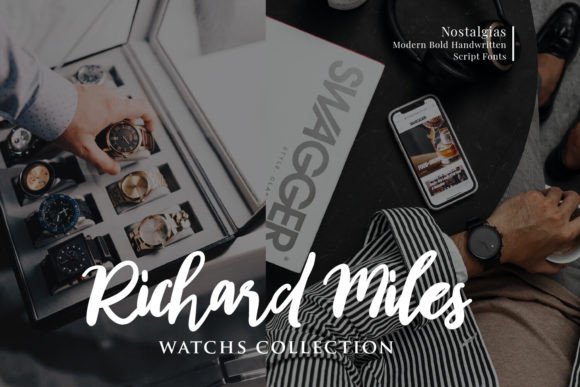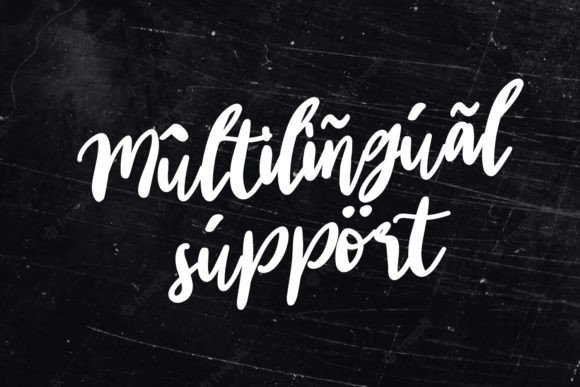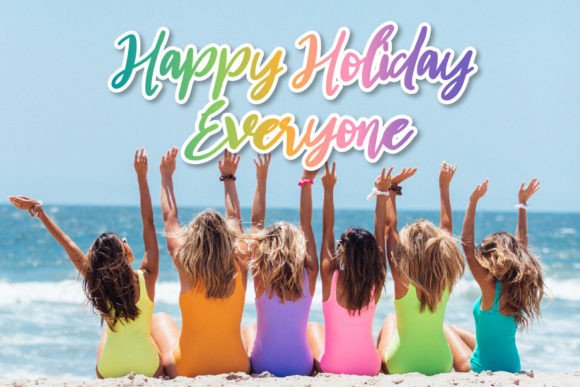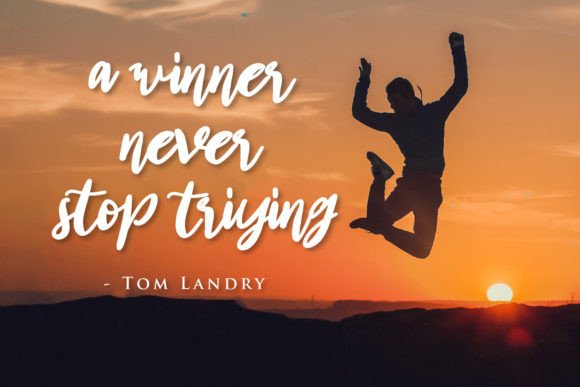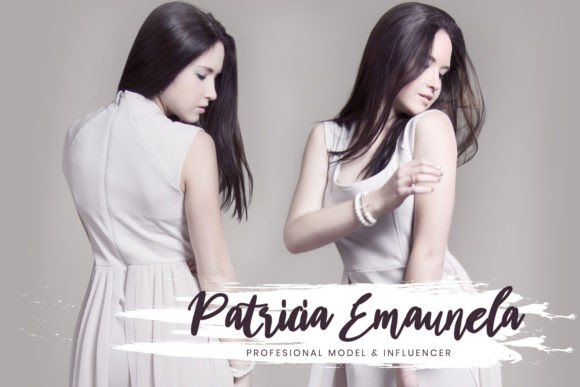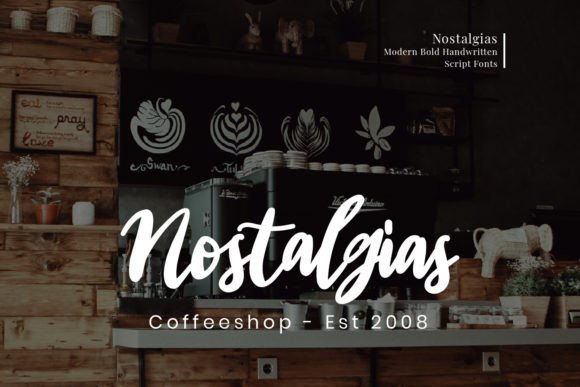
Introduction to Nostalgias Font
Have you ever been working on a design project, and the perfect font just slips your mind? You envision a beautiful, handwritten script that captures the essence of your creative vision, but it seems like an unattainable dream. Well, we’ve got some exciting news for you! The Nostalgias Font is here to revolutionize your design process, making it easier than ever to bring your ideas to life.
This high-quality, Handwritten Script font is the perfect addition to any design resource. With its unique, elegant style, it’s sure to elevate your branding, promotional ads, quote designs, merchandise, and social media projects to a whole new level. Whether you’re working on a special event or a personal creative project, the Nostalgias Font is the perfect tool to help you stand out from the crowd.
Key Features of Nostalgias Font
- High-quality, vintage-inspired design ideal for creative projects and design resources.
- Features a transparent background, allowing for easy layering and manipulation in design software.
- Designed with a distressed, nostalgic aesthetic, perfect for adding a touch of retro charm to your design.
- Available in multiple font sizes and resolutions, making it suitable for a wide range of design applications.
- Can be easily customized and edited using popular design software, such as Adobe Photoshop and Illustrator.
- Perfect for use in graphic design, digital art, and other creative projects that require a unique, high-quality font.
Honest Review: Nostalgias Font
As a designer, I’m always on the lookout for high-quality design resources that can elevate my creative projects. Recently, I had the chance to work with the Nostalgias Font, and I’m excited to share my honest review.
- ✨ Unique and vintage aesthetic that’s perfect for retro-themed projects
- ✨ Clear and transparent background, making it easy to use on any design
- ✨ Compatible with various design software and platforms
- ⚠️ Limited font size options, which can be a challenge for large-scale designs
- ⚠️ Some users may find the font too ornate or busy for certain design projects
Overall, I’m impressed with the Nostalgias Font’s unique character and versatility. While it may have some limitations, it’s a valuable design resource for anyone looking to add a touch of nostalgia to their creative projects.
Tips for Getting the Most Out of Nostalgias Font
Use the Nostalgias Font on a transparent background to create a unique and eye-catching design. You can also combine it with other design elements, such as graphics and images, to create a visually appealing design. This free download font is a valuable design resource for any creative project.
The Nostalgias Font is perfect for designing invitations, brochures, and posters. Its unique and creative style makes it ideal for branding and marketing materials. You can also use it to create a custom logo or icon for your business or personal project.
Alternatives to Nostalgias Font
Great Vibes Font is a beautiful, handwritten script font perfect for creating high-quality designs with a personal touch. It’s ideal for use on a transparent background, making it a great design resource for creative projects. Great Vibes Font is a free download and offers a more elegant feel compared to Nostalgias Font.
Alex Brush Font is a sophisticated, handwritten font suitable for use in various creative projects, including advertisements and editorial designs. It’s available for free download and offers a more refined feel compared to Nostalgias Font. Alex Brush Font is a great alternative when you need a high-quality, elegant font with a transparent background.
Ostrich Sans Font is a modern, sans-serif font designed for use in digital and print designs. It’s a free download and offers a clean, minimalist feel, making it a great design resource for creative projects. While it lacks the handwritten feel of Nostalgias Font, Ostrich Sans Font is a great alternative when you need a high-quality, versatile font with a transparent background.